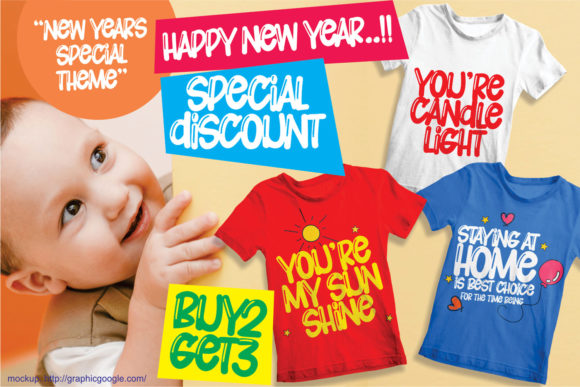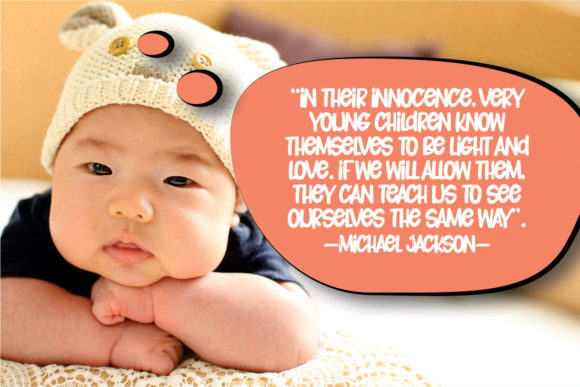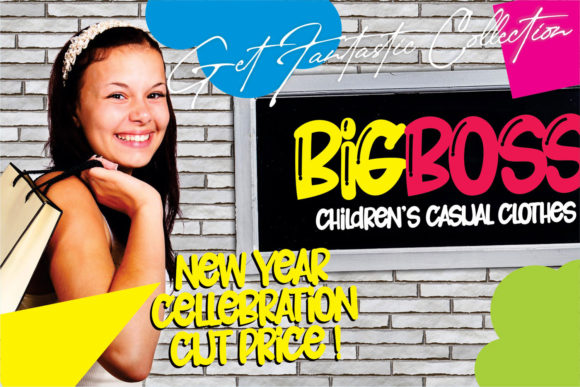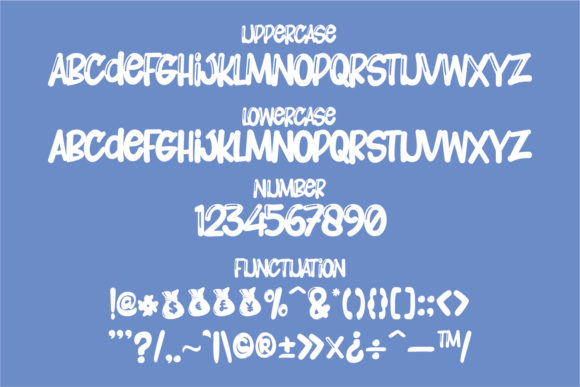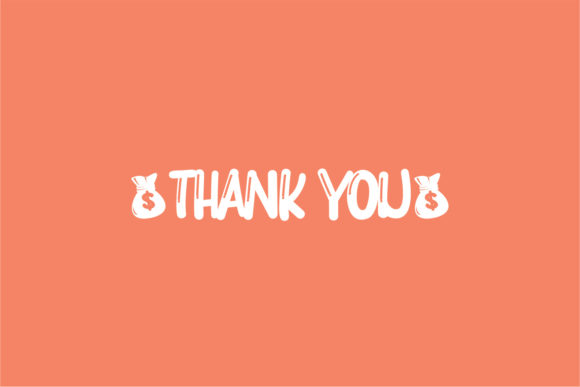
Crazy Rich Font: Elevate Your Designs with a Fun and Joyful Display Font
Are you tired of using the same old fonts in your designs? Look no further than Crazy Rich, a fun and joyful display font that’s sure to elevate each of your creations. Incredibly neat and trendy, Crazy Rich is the perfect addition to any design project, from crafting and scrapbooking to graphic design and digital art.
What Makes Crazy Rich Font So Special?
Crazy Rich is more than just a font – it’s an experience. With its unique and playful design, this font is sure to bring a smile to your face and inspire your creativity. Here are just a few reasons why Crazy Rich is a must-have for designers and crafters:
- Fun and Joyful: Crazy Rich is the perfect font for adding a touch of whimsy and fun to your designs. Whether you’re creating a birthday card or a social media graphic, this font is sure to bring a little excitement to your project.
- Incredibly Neat and Trendy: Crazy Rich is a modern and stylish font that’s perfect for designers who want to stay on top of the latest trends. Its sleek and sophisticated design makes it ideal for a wide range of projects, from fashion and beauty to lifestyle and entertainment.
- Versatile: Crazy Rich is a versatile font that can be used for a wide range of projects, from digital art and graphic design to crafting and scrapbooking. Its unique design makes it perfect for adding a personal touch to your creations.
How to Use Crazy Rich Font in Your Designs
Using Crazy Rich in your designs is easy. Here are a few tips to get you started:
- Pair it with Other Fonts: Crazy Rich is a bold and playful font, but it can also be paired with other fonts to create a unique and interesting look. Try pairing it with a clean and simple font for a striking contrast.
- Use it for Headlines and Titles: Crazy Rich is perfect for headlines and titles, where its bold and playful design can really shine. Use it to add a touch of personality to your text and make it stand out.
- Add it to Your Digital Toolkit: If you’re a digital designer or artist, consider adding Crazy Rich to your digital toolkit. It’s a great way to add a little excitement to your projects and stay ahead of the curve.
Why Designers and Crafters Love Crazy Rich Font
Crazy Rich has quickly become a favorite among designers and crafters, and it’s easy to see why. Here are just a few reasons why this font has won over so many hearts:
- Easy to Read: Despite its playful design, Crazy Rich is incredibly easy to read. Its clear and clean lines make it perfect for use in a wide range of projects, from signage and posters to digital graphics and social media posts.
- Unique and Creative: Crazy Rich is a truly unique and creative font that’s sure to set your designs apart. Its bold and playful design makes it perfect for designers who want to add a little personality to their work.
- High-Quality: Crazy Rich is a high-quality font that’s designed to deliver exceptional results. Its crisp and clean lines make it perfect for use in both digital and print projects.
If you’re looking for a fun and joyful display font that’s sure to elevate your designs, look no further than Crazy Rich. With its unique and playful design, this font is perfect for designers and crafters who want to add a little excitement to their work. Whether you’re creating digital art, crafting, or graphic design, Crazy Rich is the perfect addition to your toolkit.